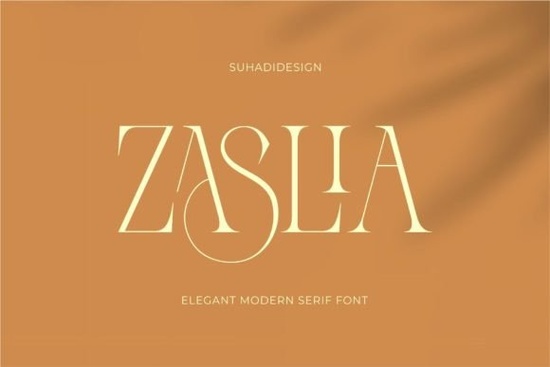
Finding the right serif font can make or break a design project. The Zaslia font is an elegant ligature serif that brings a refined, modern look to any layout. It combines clean letterforms with stylish ligatures, giving your text a polished feel without looking overdone. If you've been browsing this elegant serif typeface for your next project, here's what you should know before you start using it.
Zaslia works across a range of creative needs from branding and editorial layouts to social media graphics and print-on-demand products. But how does it actually perform in real design work? Let's break it down.
What Makes Zaslia Different from Other Serif Fonts?
Zaslia is designed with built-in ligatures special character combinations where two or more letters connect smoothly. These ligatures give words a more natural, flowing appearance compared to standard serif fonts. The result is text that feels handcrafted but still clean and readable.
Key features include:
- Stylish ligatures that create seamless letter connections
- Elegant letterforms with balanced proportions
- Modern serif structure that works across print and digital
- Versatile weight suitable for both headings and display text
Compared to something like the Fashionable font collection, which leans into trendy styling, Zaslia offers a more timeless design. It fits well in luxury branding but also works in everyday business materials. You can learn more about serif typography basics if you want to understand why ligatures matter in professional design.
Who Should Use This Font?
Zaslia works for a wide range of creative professionals and hobbyists:
- Graphic designers working on brand identities, logos, and packaging
- Print-on-demand sellers creating t-shirt designs, mugs, and wall art
- Small business owners designing business cards, menus, or flyers
- Content creators making Instagram posts, Pinterest pins, or YouTube thumbnails
- Authors and publishers looking for a stylish serif for book covers or interior layouts
- Crafters and hobbyists making invitations, planners, or printable art
If you run a small business and need a font that looks professional without hiring a designer, Zaslia gives you that polished look right out of the box.
What Projects Work Well with an Elegant Ligature Serif?
An elegant serif like Zaslia pairs beautifully with projects where you want to convey quality and sophistication. Here are some specific uses:
- Magazine layouts Headers and pull quotes look refined with ligature serifs
- Wedding invitations The flowing letterforms add a romantic, elegant tone
- Business branding Logos, letterheads, and business cards feel upscale
- Book and publication covers Clean readability with a stylish edge
- Social media graphics Stand out in feeds with distinctive typography
- Beauty and fashion projects Naturally complements luxury and lifestyle content
For creative hobbyists who enjoy making printables or planners, Zaslia adds a touch of class to headers and titles without being hard to read at smaller sizes.
How Does It Compare to Other Stylish Serif Options?
There are plenty of elegant serif fonts out there, so how does Zaslia hold up? Here's a quick look at similar options:
- Zaslia Modern elegant serif with ligatures, a solid all-rounder for branding and editorial
- Vogue font High-fashion editorial style, best for luxury and fashion-forward projects
- Fashionable font Trendy serif with a modern twist, works well for lifestyle branding
Each of these fonts has its own personality. If you want something that covers more ground from business cards to magazine covers Zaslia is a strong pick. You can explore more options in this curated serif font collection to compare styles.
If you also work on active lifestyle or sports-related designs, the Sport Bundle font collection pairs bold, energetic lettering with serif styles, which could complement Zaslia in mixed-brand projects.
How Do I Get the Most Out of Zaslia Font?
Here are a few practical tips to use this font effectively in your designs:
- Enable ligatures in your design software (Photoshop, Illustrator, Canva Pro, or Affinity Designer) to see the full effect of the connected letterforms.
- Pair it with a simple sans-serif for body text Zaslia works best as a headline or accent font.
- Use generous letter spacing Give the elegant letterforms room to breathe, especially in headings.
- Test at different sizes Check readability on both large prints and small screens before finalizing.
For those building a font library, Zaslia pairs well with clean geometric sans-serifs. Try combining it with a minimalist sans for body copy to create a clear visual hierarchy.